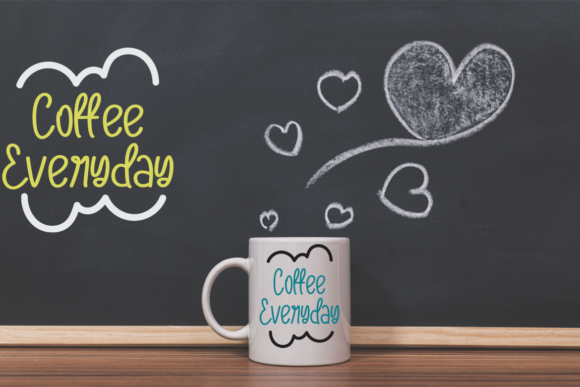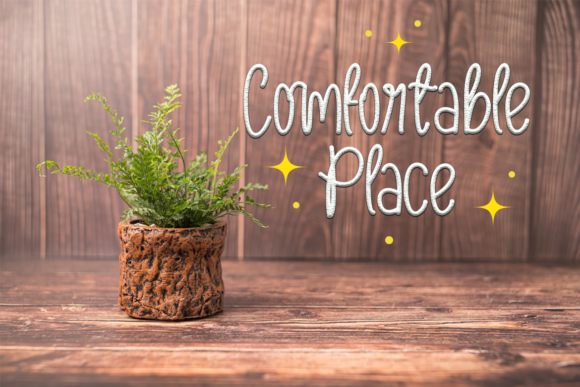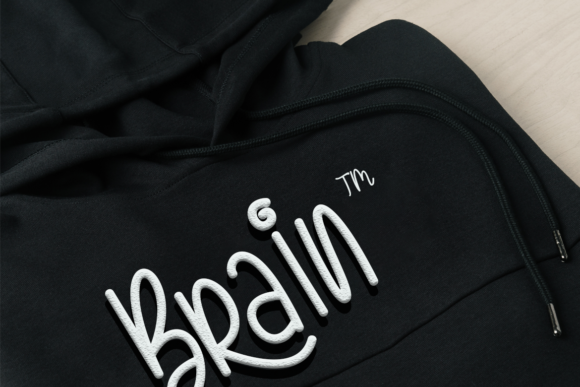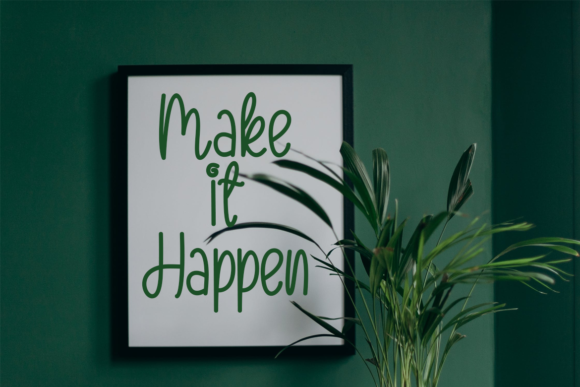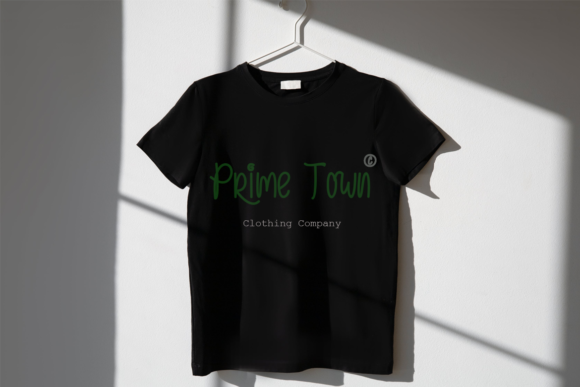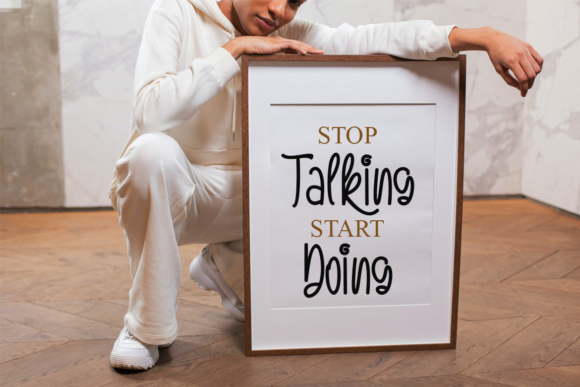
Dorayaki Font
About Dorayaki Font
Dorayaki is a cute and simple lettered handwritten font that can be used for all chalkboard quotes or teaching material! Its authentic look will add a personal and realistic feel to your designs.